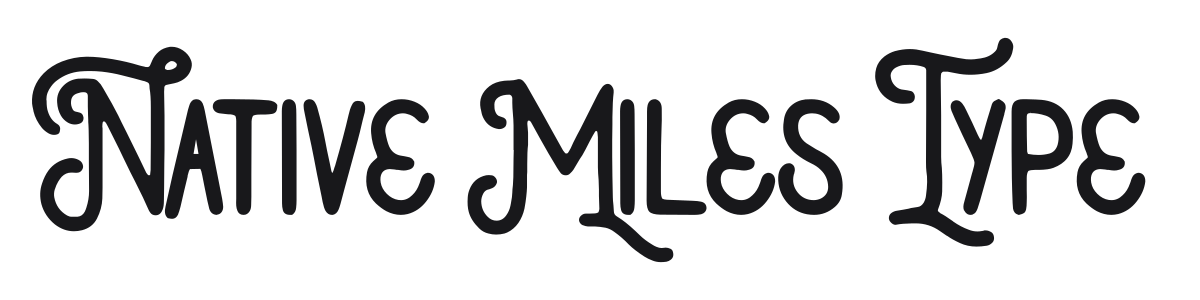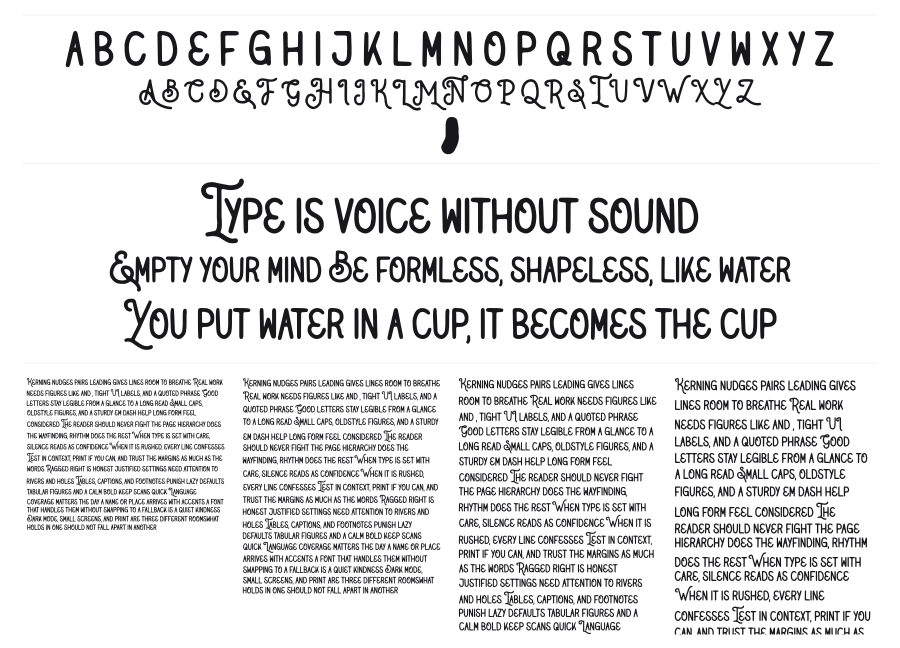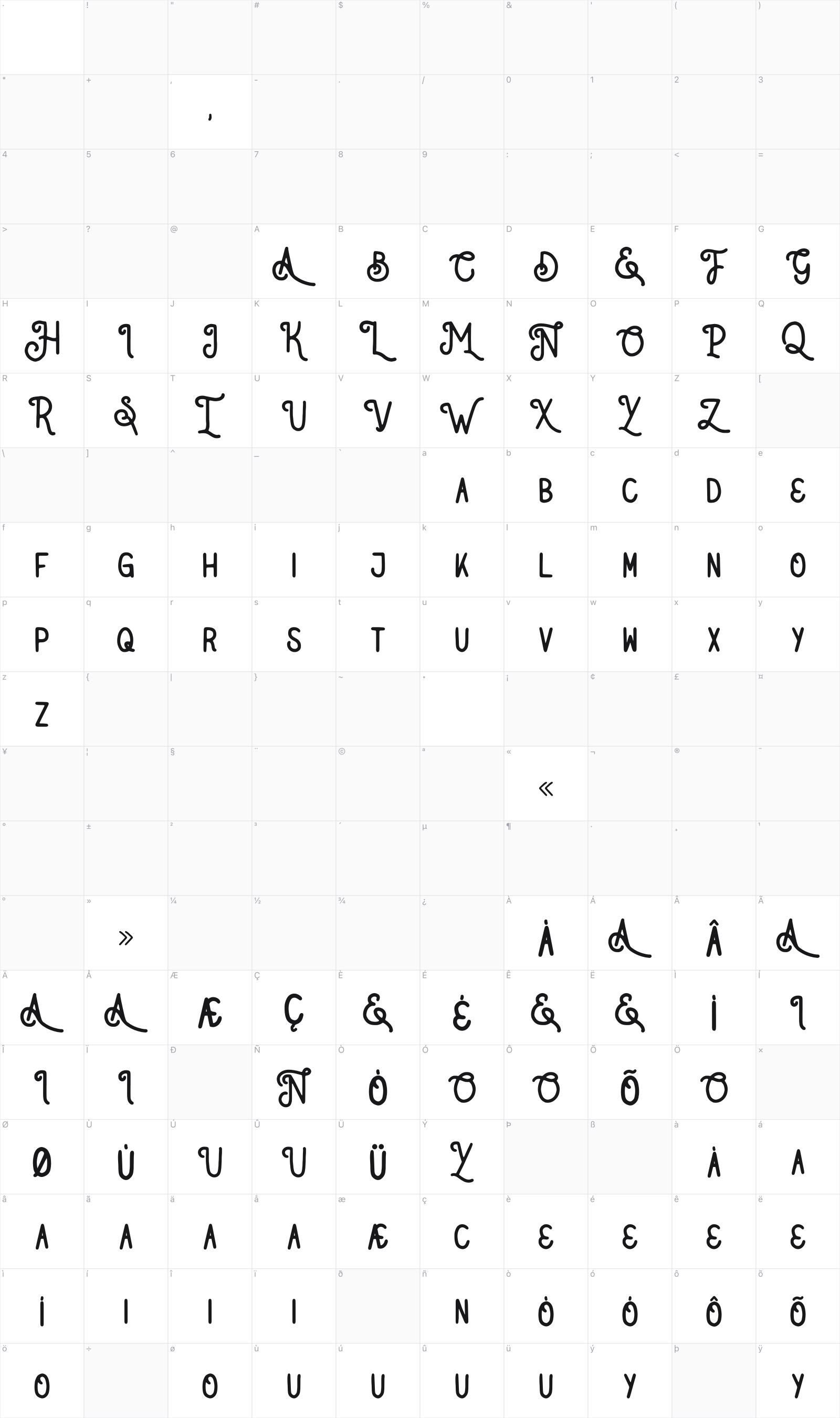
Native Miles Type
Native Miles Type is a bold condensed sans with hand-drawn irregularities that give it a warm, folksy character. Rounded terminals and slightly wobbly strokes reference vintage hand-lettering and 1960s folk signage without feeling like a direct revival. It carries personality without tipping into novelty territory.